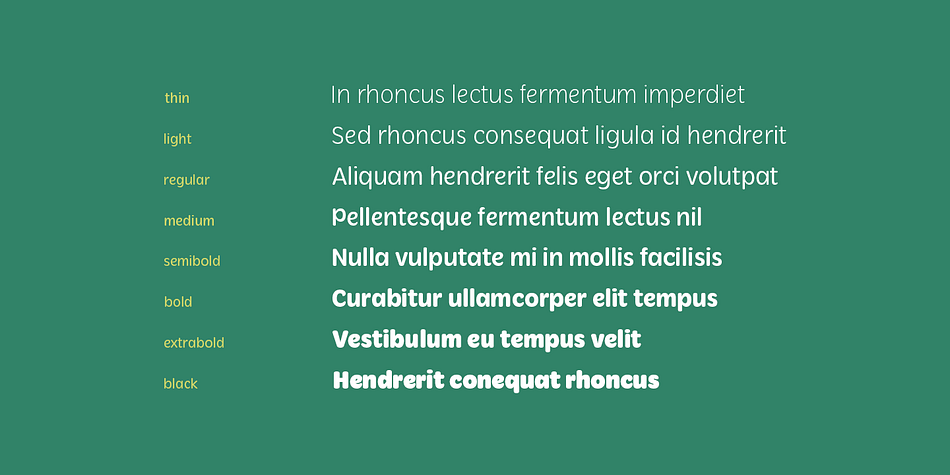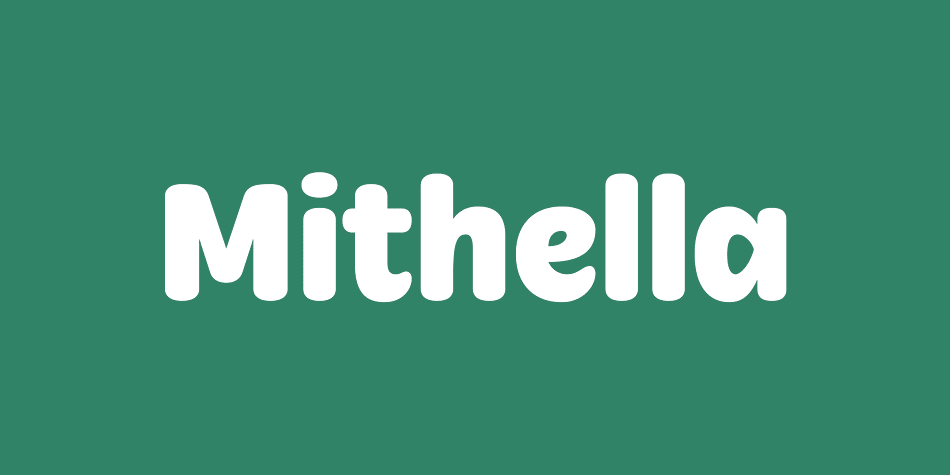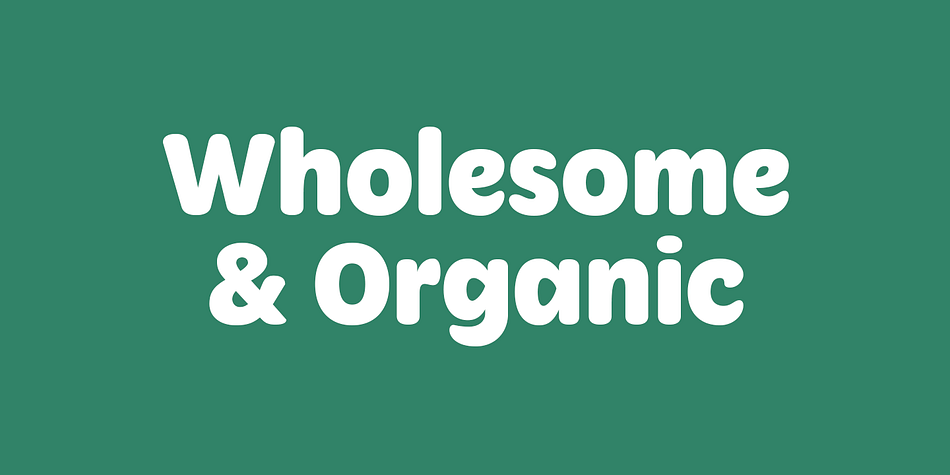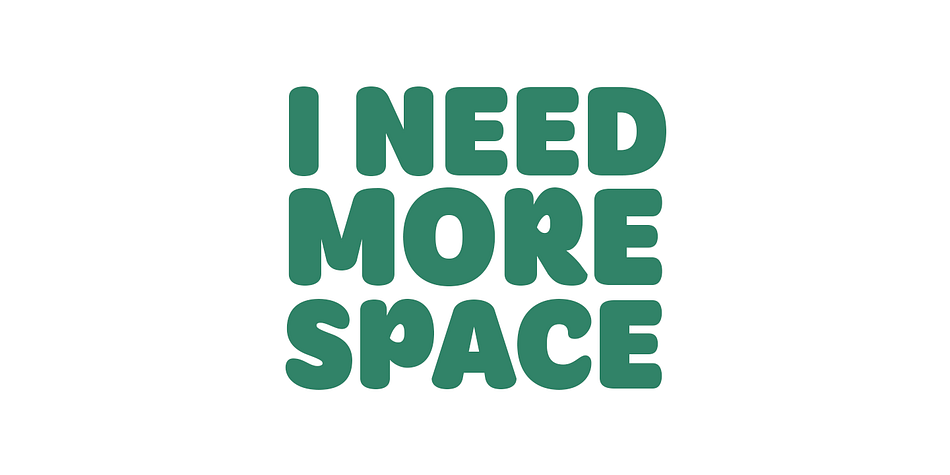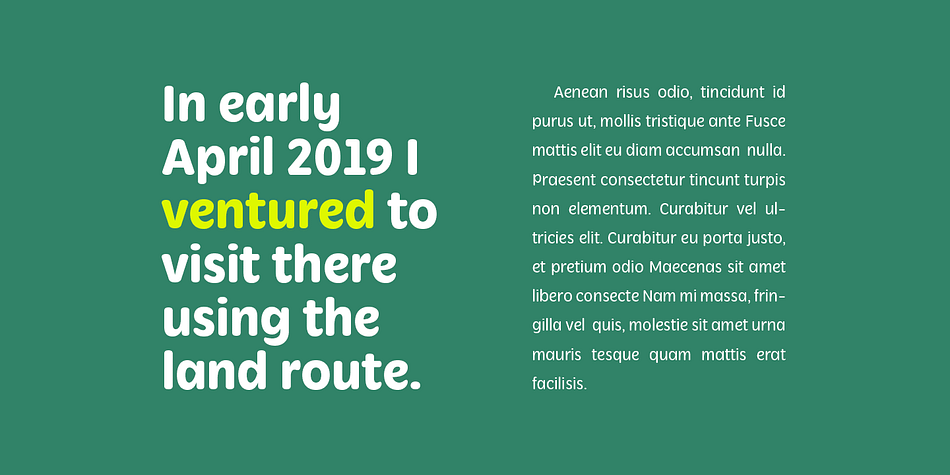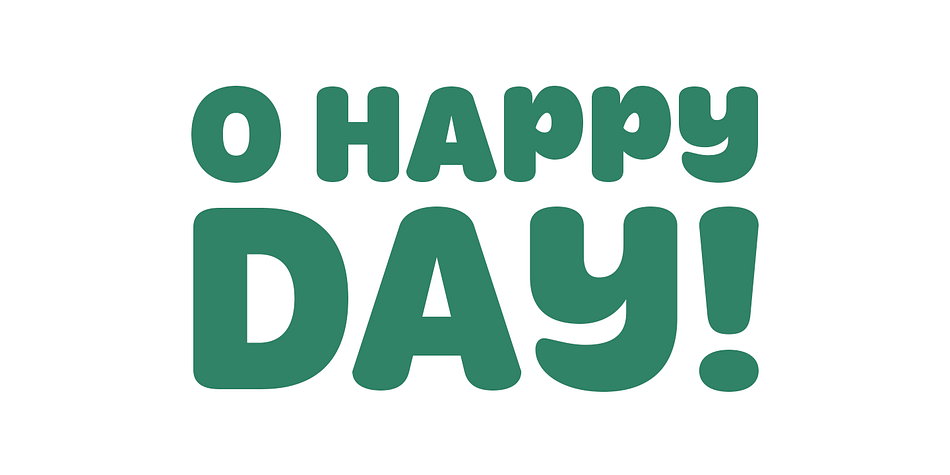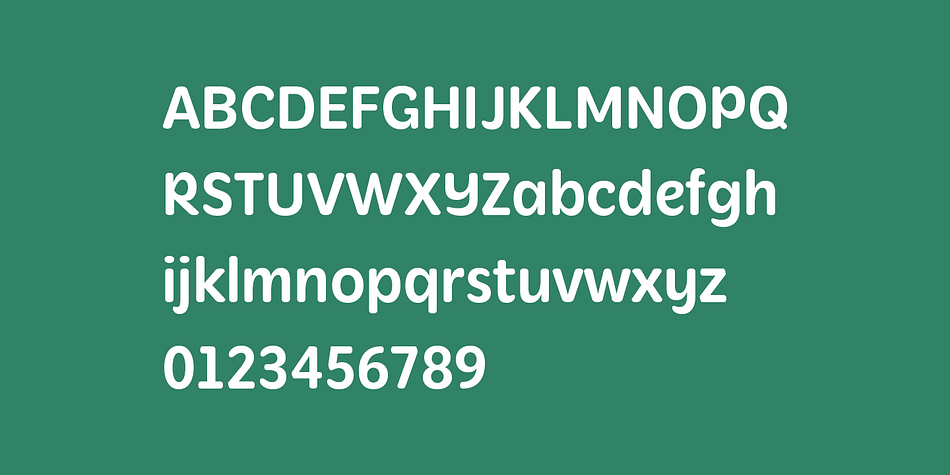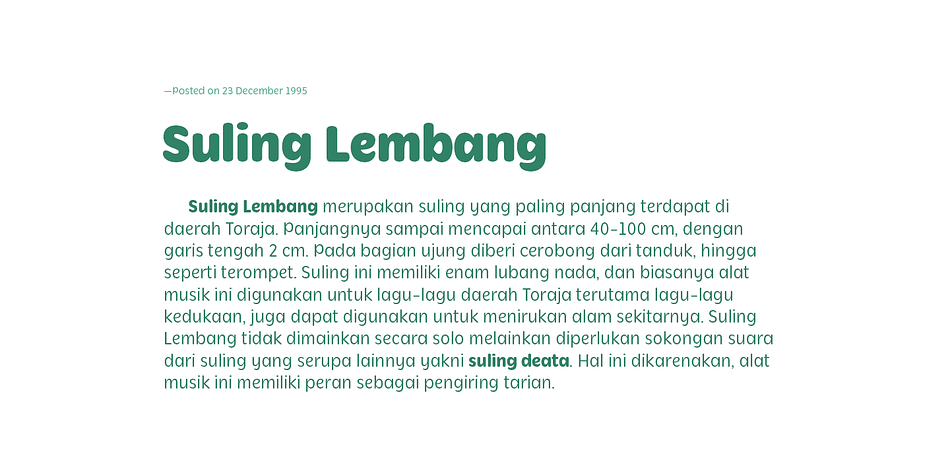
Designed by Anugrah Pasau, Mithella is a sans serif font family. This typeface has eight styles and was published by Lafontype.
Mithella is a sans serif family with a pleasant touch.
Some letters, especially linear ones, look normative like other rounded sans serifs, but the difference can be seen clearly in curved letters so that it gives a pleasant impression for each series of words.
Mithella comes with eight weights ranging from thin to black to complement your design needs be it branding, blogging, logos, advertising, games, cooking, packaging, editorial and publishing, web and screen design.